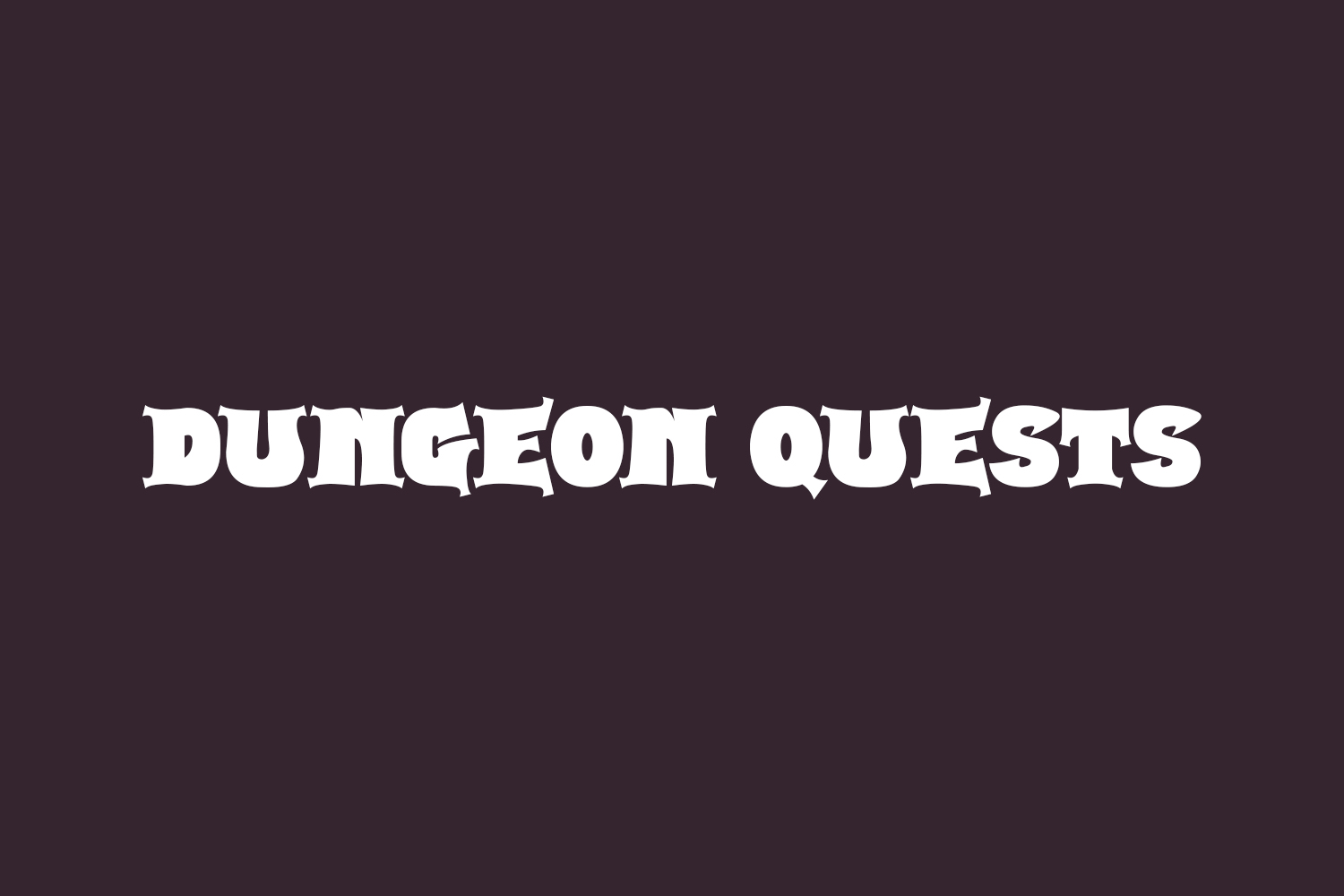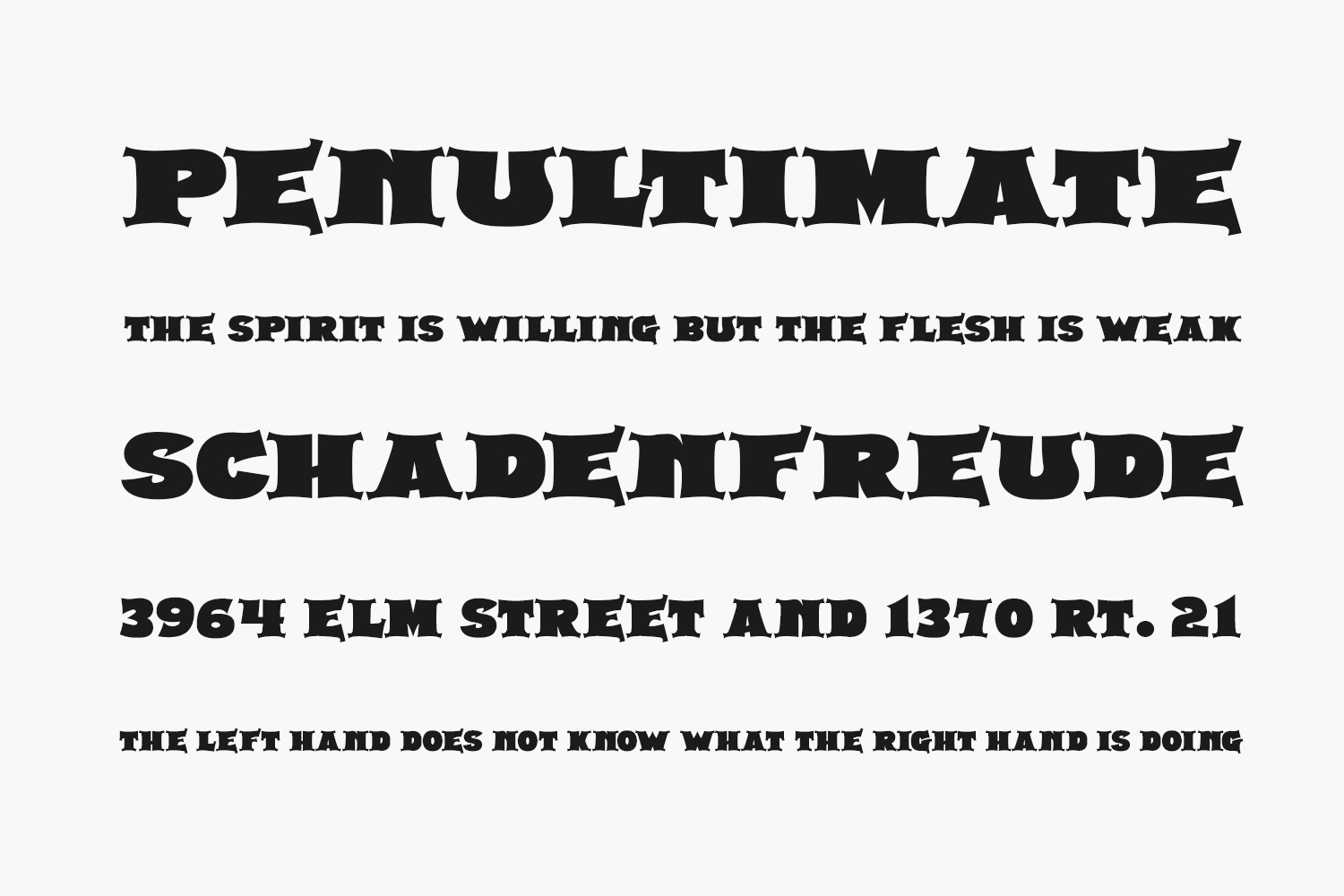
Dungeon Quests Free Font Family is a bold, expressive serif font in an old world fantasy adventure style. Perfect for dungeon explorations, battling goblins, and general fiction themes. Dungeon Quests Free Font Family was designed by Darrell Flood and is free for personal use only. Please purchase the full version for commercial use.
Dungeon Quests Regular The quick brown fox jumps over the lazy dog
Dungeon Quests Italic The quick brown fox jumps over the lazy dog